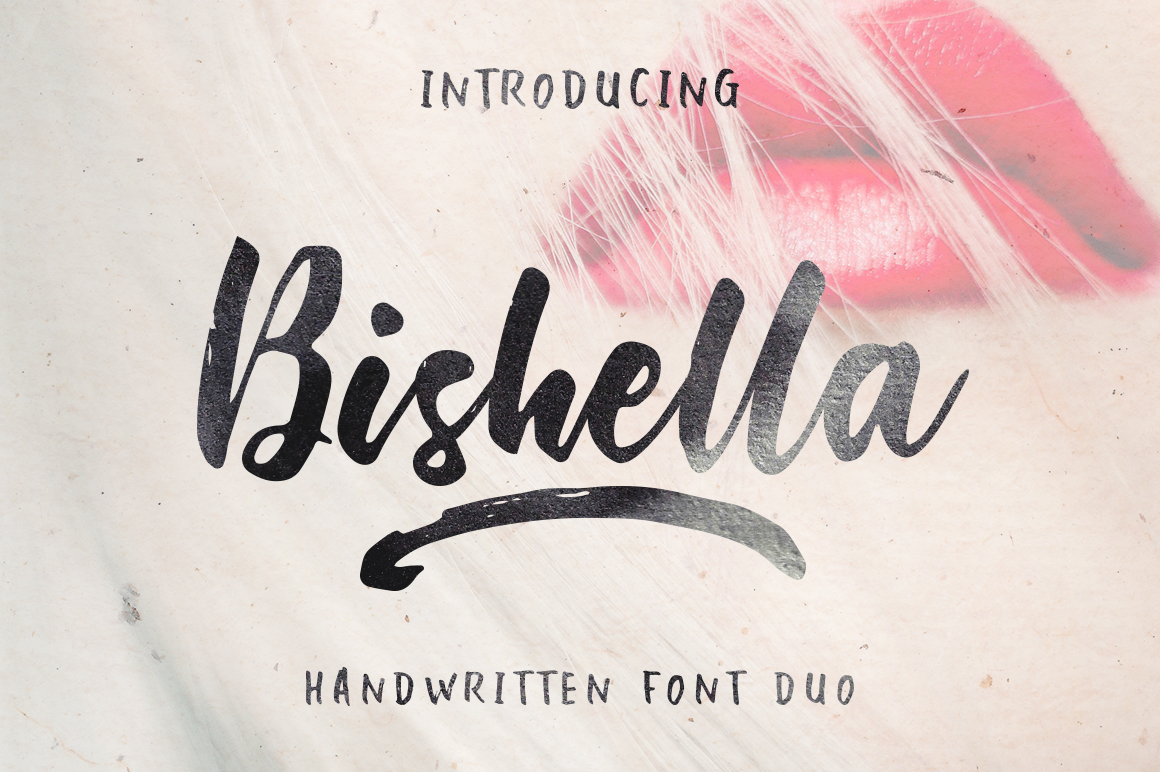
The Bishella Font: A Designer’s Dream Come True
I’ll never forget the frustration I felt while working on a project, searching for the perfect font to give my design a cohesive feel. My client wanted something refined yet relaxed, and I was determined to deliver. That’s when I stumbled upon the Bishella Font duo, and it changed the game. In this article, I’ll share my experience with Bishella, its features, and how to make the most of it in various design platforms.
A Personal Review: What I Love and What I Don’t
- 💯 Bishella is a stunning font duo that offers a perfect blend of refinement and relaxation.
- ✅ The font comes with character alternates, allowing for a high level of customization.
- 🎉 The cohesive feel it provides is ideal for design projects that require a harmonious look.
- 👍 The font is versatile and works well for both digital and print designs.
The Not-So-Perfect Aspects 🤔
- ⚠️ Some users might find the font a bit too delicate for certain design projects.
- 🤔 The font’s versatility might make it challenging to choose between the two styles.
The Story Behind Bishella: A Designer Inspiration
Bishella was designed with the intention of creating a font duo that embodies both refinement and relaxation. The designer aimed to craft a font that would be perfect for creative projects, from elegant branding to beautiful stationery. With Bishella, you can achieve a cohesive look that elevates your designs.
| Font Name | Bishella Font |
| Author | PointLab |
| What makes Bishella unique? | Bishella’s unique feature is its character alternates, which allow for a high level of customization and a cohesive feel. |
| Is Bishella suitable for digital and print designs? | Yes, Bishella works well for both digital and print designs, making it a versatile font for various projects. |